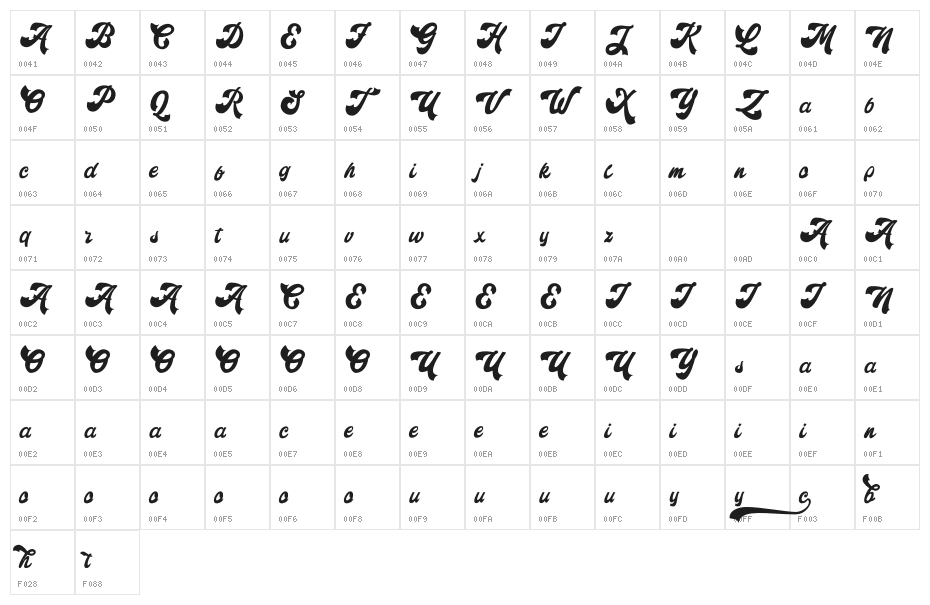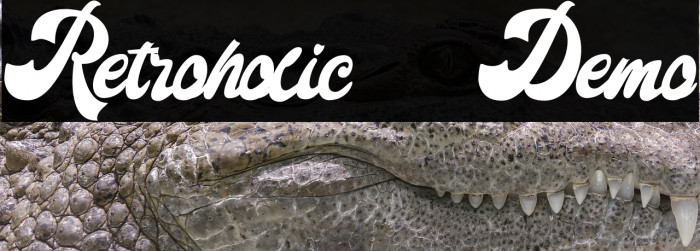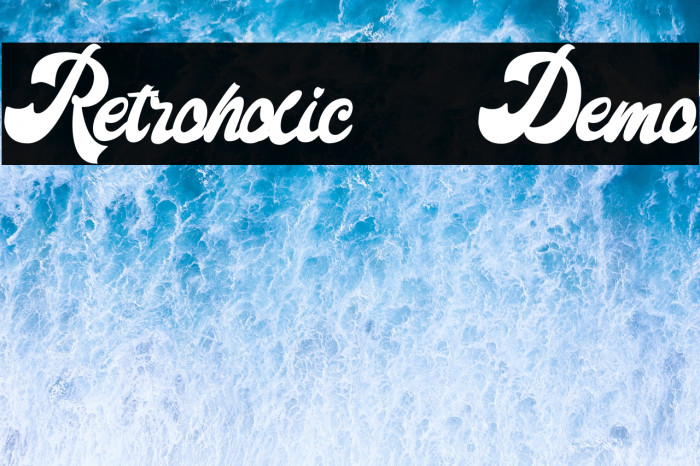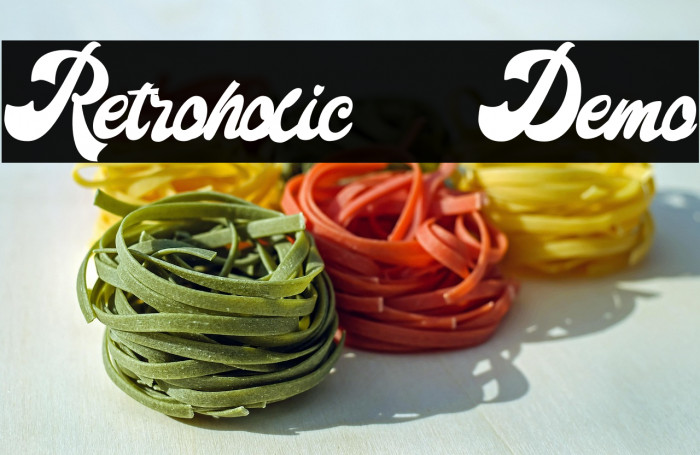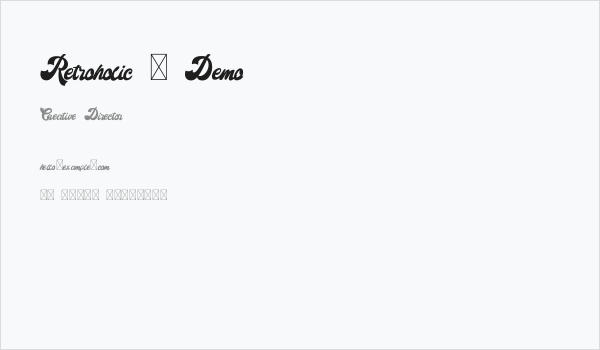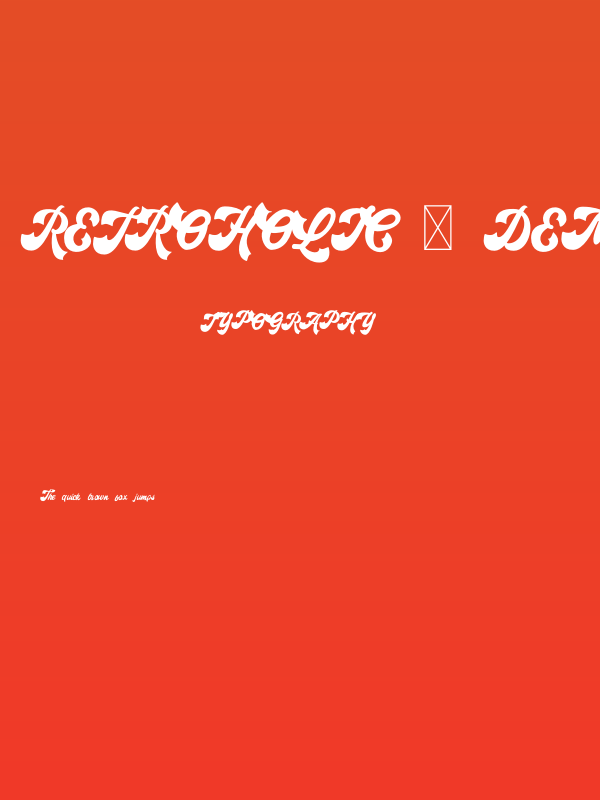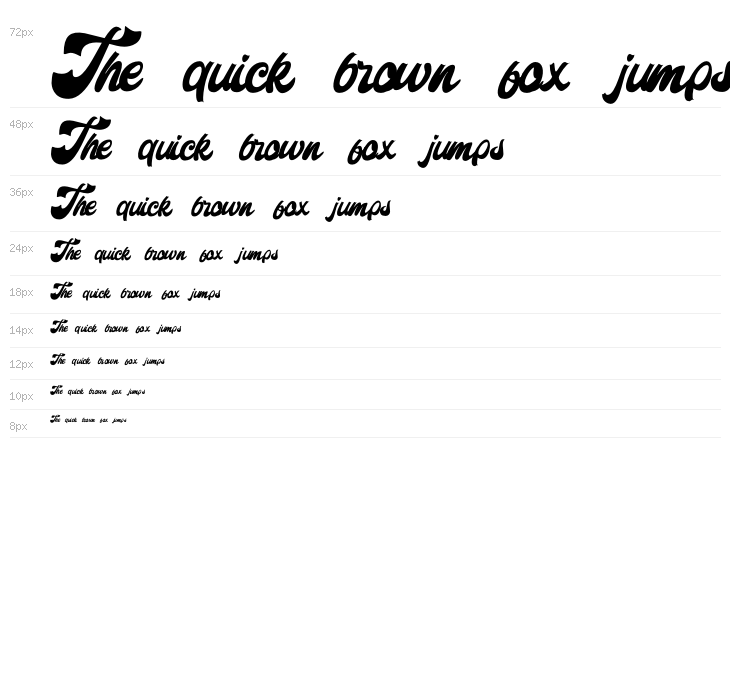
Retroholic - Demo Font
Retroholic - Demo Description
This font features a bold and expressive script style, characterized by its flowing, cursive letterforms. The uppercase letters are ornate with exaggerated loops and swashes, giving a sense of elegance and flair. The lowercase letters maintain a consistent flow, complementing the uppercase with their smooth curves and connected strokes. The overall appearance is dynamic and eye-catching, suitable for designs that require a touch of sophistication and creativity. The font's bold weight and high contrast between thick and thin strokes enhance its readability while maintaining its decorative appeal.
| Use Case | Logos, Headlines, Invitations |
| Proposed Projects | Ideal for wedding invitations, branding projects, logo designs, and decorative headlines. |